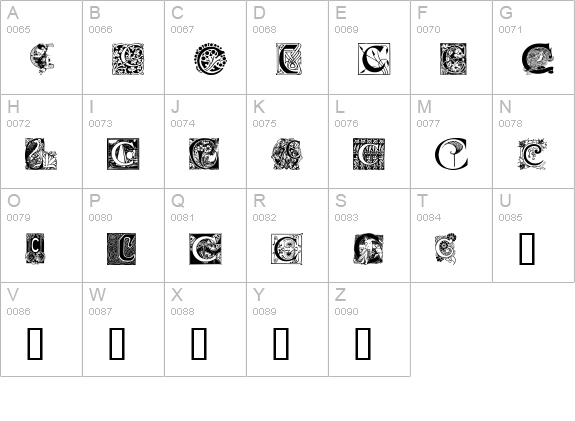
Art Nouveau Initials C Font Details
Art Nouveau Initials C font exudes elegance and sophistication with its intricate floral motifs and flowing lines. This stunning typeface captures the essence of the Art Nouveau movement, known for its ornate and graceful designs. The delicate curves and ornamental details of Art Nouveau Initials C make it a perfect choice for adding a touch of vintage charm to your projects. This font is not only visually captivating but also versatile, suitable for a wide range of design applications including invitations, posters, greeting cards, and more. Its timeless appeal will add a touch of class to any project. Best of all, Art Nouveau Initials C is completely free to download at FontsMarket.com. So, bring a touch of old-world charm to your designs with this exquisite font today!